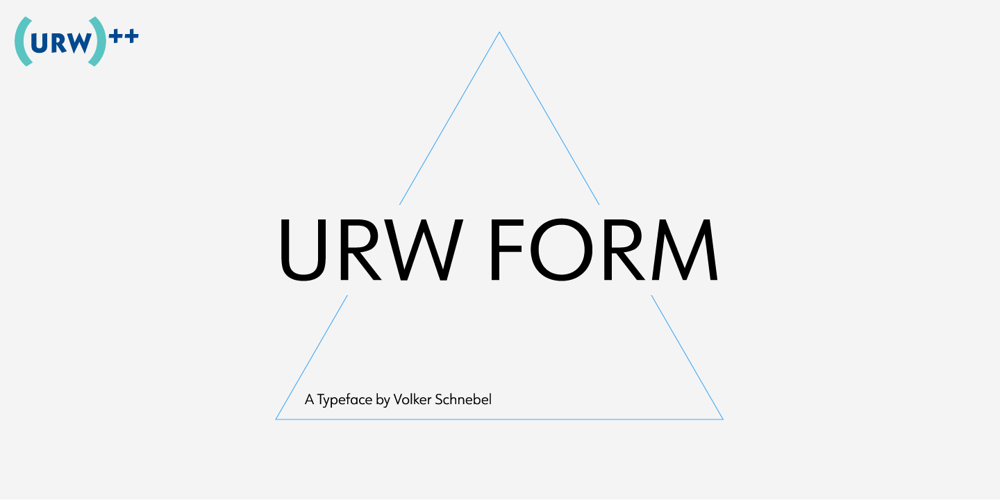
URW Form
URW Form font
URW Form Font Family was designed by Volker Schnebel and published by URW Type Foundry. URW Form contains 80 styles and family package options. URW Form by Volker Schnebel is the quintessence of a modern sans. Originally inspired by the timeless classic Futura, URW Form is a mix of classic and modern geometric typefaces, yet still incorporates the fundamental rules of design and looks and functions like a contemporary sans. In addition to its strong identity, URW Form has all the quality characteristics we come to expect from a Schnebel typeface. Available in 80 styles and four widths, there is also a much sought-after semi-condensed extension to broaden its creative spectrum. Weights range from the filigree Thin to the forceful Poster, making it a truly versatile sans serif typeface.